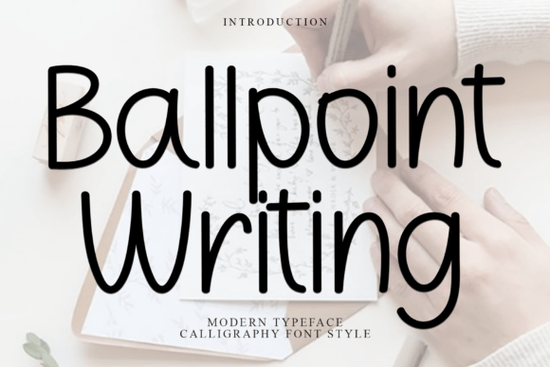
Designing for the holiday season often requires tools that convey warmth and nostalgia without sacrificing readability. When you are working on seasonal projects, finding the right typography can make the difference between a generic layout and something that feels personal. The Ballpoint Writing Font is designed to capture that festive spirit. It offers a whimsical flair that works well for designers, crafters, and small business owners looking to add a touch of enchantment to their work.
This typeface stands out because it mimics the flow of handwritten notes, which resonates well during the holidays. People associate handwriting with personal care and effort. Using a font that replicates this style on gift tags or greeting cards can make the recipient feel valued. It is not just about aesthetics; it is about the emotional connection the design creates. If you are creating physical products or digital downloads, this style helps bridge the gap between mass production and personal touch.
What kind of projects work best with this style?
The primary use cases for this typography revolve around celebration and gifting. Greeting cards are the most obvious choice, but you can extend its use to packaging, invitations, and social media graphics. The decorative elements included in the font allow you to create designs without needing extra clipart. This saves time during the busy end-of-year rush. For print-on-demand sellers, this type of script works well on mugs, tote bags, and apparel where a cozy vibe is desired.
Sometimes, you might need a contrasting font to balance the whimsy. If you are building a layout that requires a strong header, you might consider pairing this script with something more structured. For example, exploring cleaner modern styles can help ground the design. The contrast between a flowing script and a geometric sans-serif often creates a professional yet friendly look. This combination ensures that important information remains legible while the decorative text adds personality.
How do you access the extra glyphs and ligatures?
One of the technical strengths of this file is that it is PUA encoded. PUA stands for Private Use Area, which allows you to access special characters and ligatures without needing complex keyboard shortcuts. In many design applications, you can simply copy and paste these glyphs from a character map. This feature is particularly helpful for users who are not typography experts but still want advanced design elements. It streamlines the workflow, allowing you to focus on creativity rather than technical hurdles.
Accessibility matters when you are working on tight deadlines. If you usually prefer bold, impactful text for certain projects, you might look into bold stencil alternatives for contrast. However, for the main holiday message, the ease of accessing swashes and alternate characters in this script font ensures your text looks unique every time. You can avoid repetition in your designs by swapping out standard letters for their decorative counterparts.
Is this suitable for print-on-demand items?
Yes, this typography is versatile enough for various print-on-demand applications. The key is to ensure there is enough contrast between the text and the background. Since the style is decorative, it performs best on solid colors or simple textures. Busy backgrounds can make the thin strokes of the script hard to read. When preparing files for merchandise, always check the legibility at different sizes. What looks good on a screen might need adjustment when printed on a physical object.
For those managing multiple design assets, organization is crucial. You might find it helpful to use structured planning tools to keep your font library organized. Keeping track of which licenses cover commercial use is important for small businesses. This font is suitable for commercial projects, but always double-check the specific license terms associated with your download. Proper organization prevents legal issues and saves time when searching for the right file later.
What are some good pairing options?
While this font shines on its own, pairing it correctly can enhance its impact. Script fonts often benefit from a simple sans-serif companion for body text. If you are looking for a duo that already combines these styles, you could examine the pairing options available in similar categories. Having a pre-matched duo can speed up your design process significantly. It ensures that the x-heights and visual weights of the two fonts complement each other naturally.
If you want to see more details about this specific typeface, you can visit this specific collection page on our site. Reviewing the full character set before you start designing helps you plan your layout better. Knowing which ligatures are available allows you to write your copy with those connections in mind. This proactive approach reduces the need for revisions later in the design process.
- Use PUA encoded glyphs to add variety to repeated words.
- Pair decorative scripts with simple sans-serif fonts for balance.
- Ensure high contrast between text and background colors.